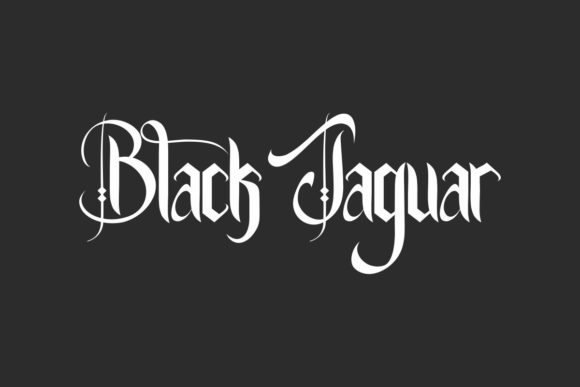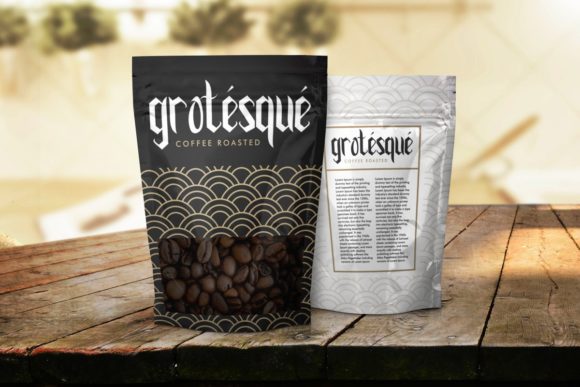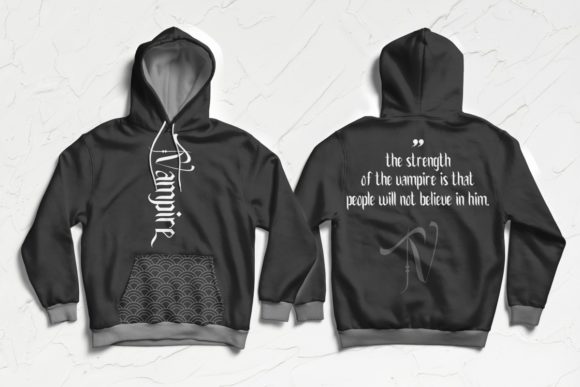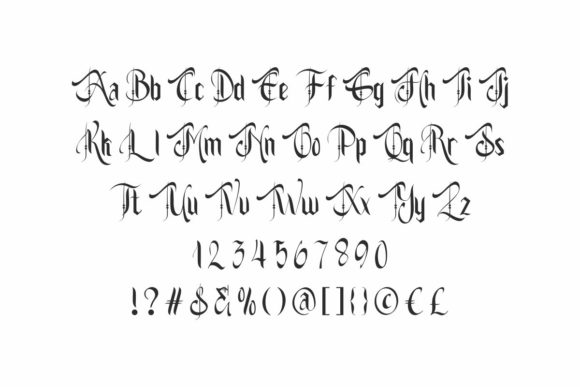
Black Jaguar Font
Black Jaguar is a blackletter font with a gothic style. This font is PUA encoded which means you can access all of the glyphs and swashes with ease. Add it confidently to your projects, and you will love the results.